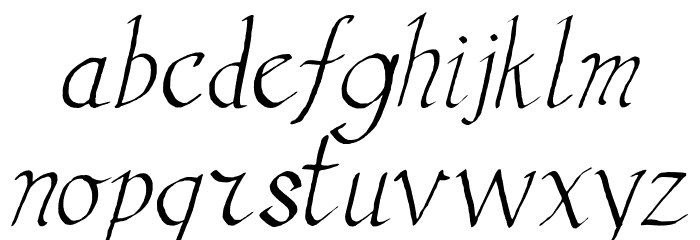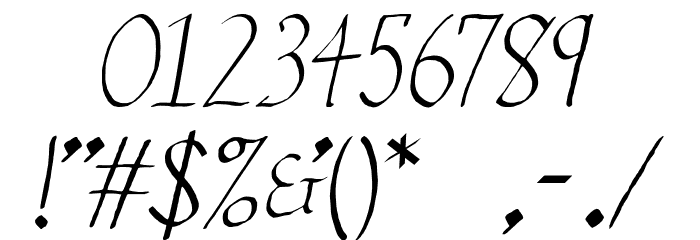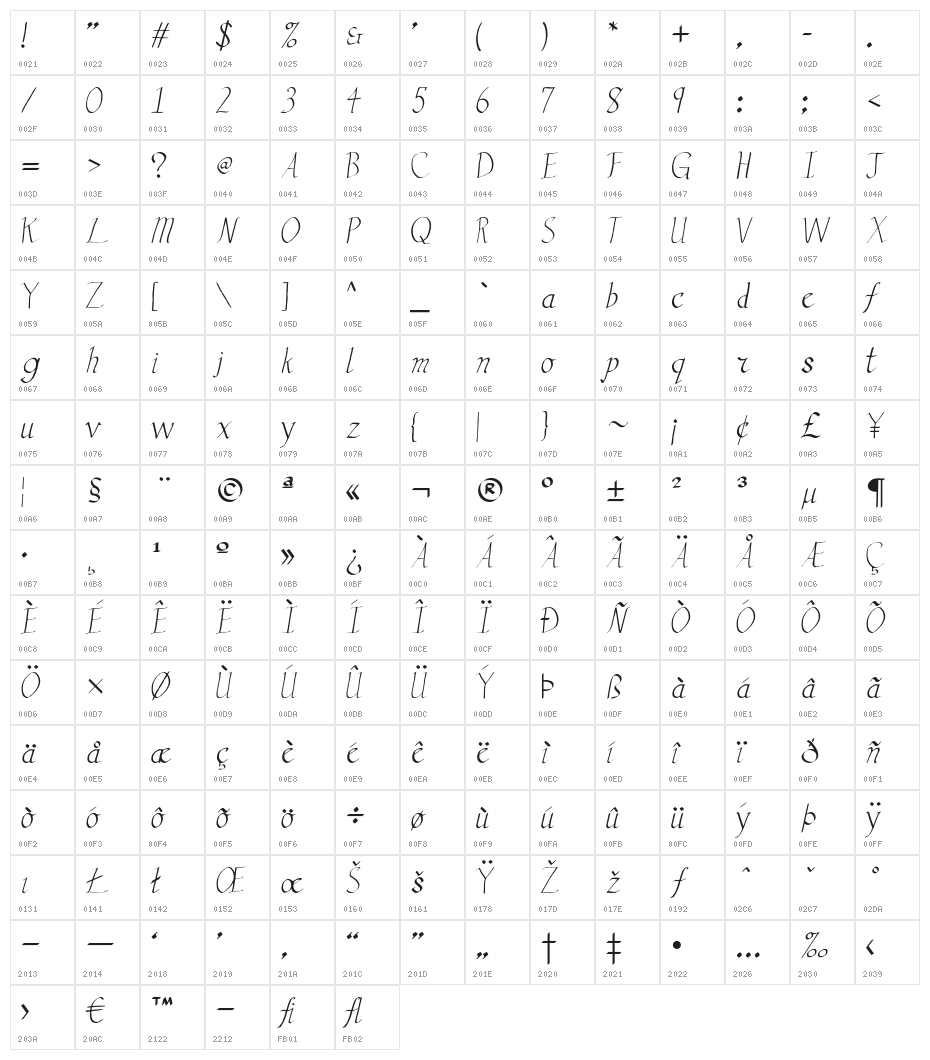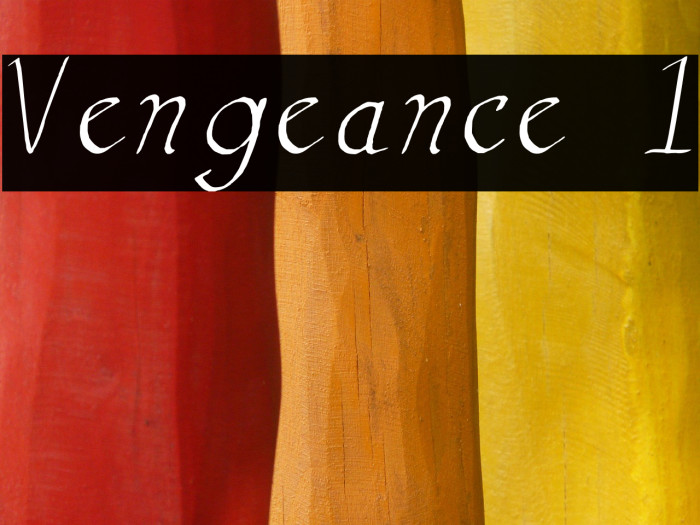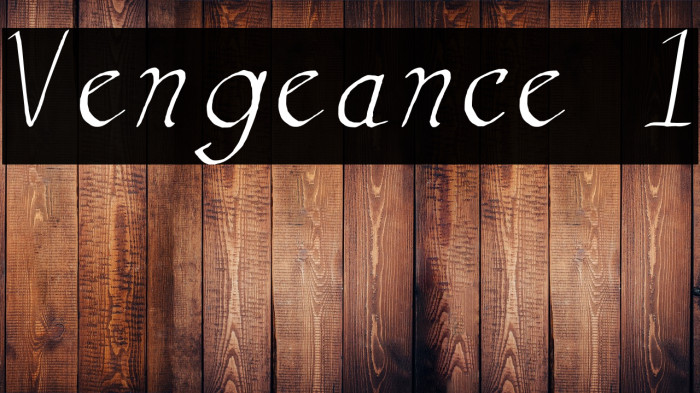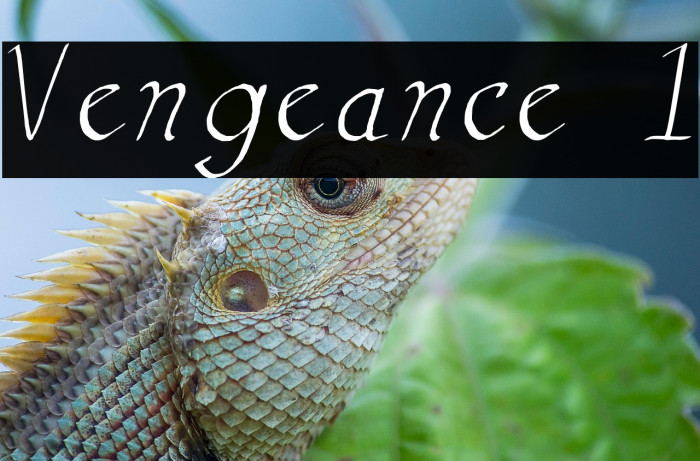
Vengeance 1 Font
This font features a dynamic and expressive style, characterized by its sharp, angular strokes and a slightly slanted orientation. The uppercase letters exhibit a sense of movement and fluidity, while the lowercase letters maintain a consistent rhythm with elegant curves. The numerals are distinct and align well with the overall aesthetic, providing a cohesive look. Special characters are designed with the same attention to detail, ensuring they complement the alphabetic characters. This font's unique style makes it suitable for creative and artistic projects, where a touch of flair and individuality is desired.
An expressive, angular font with a dynamic and slightly slanted style.
- Proposed Projects: Ideal for artistic projects, branding, invitations, and expressive design work.
- Use Case: Logos, Invitations, Artistic projects